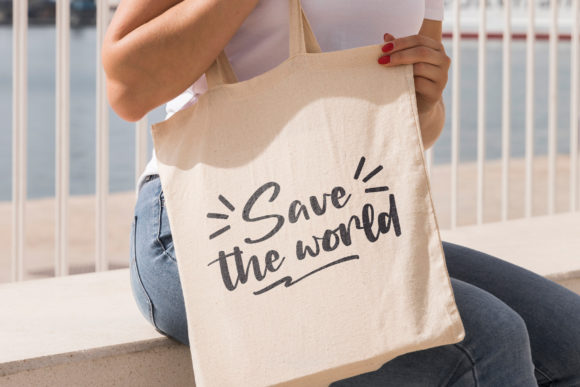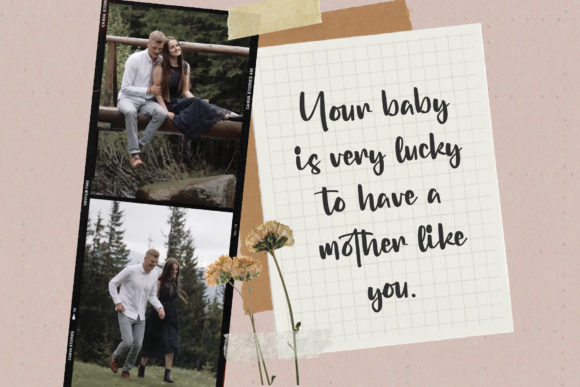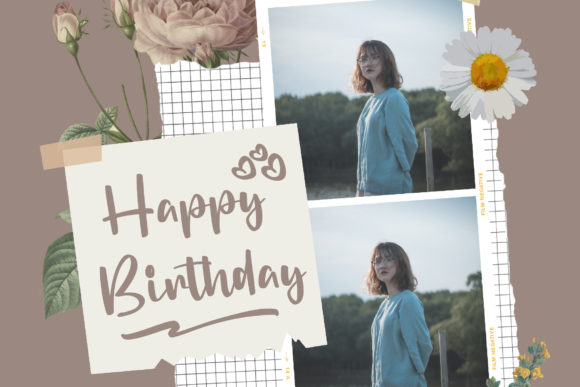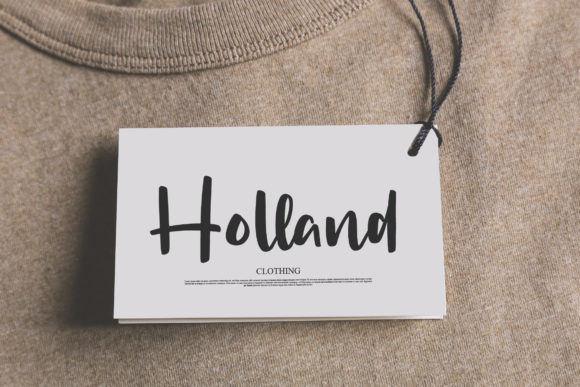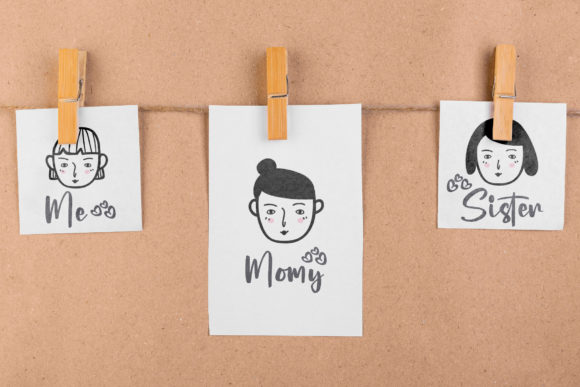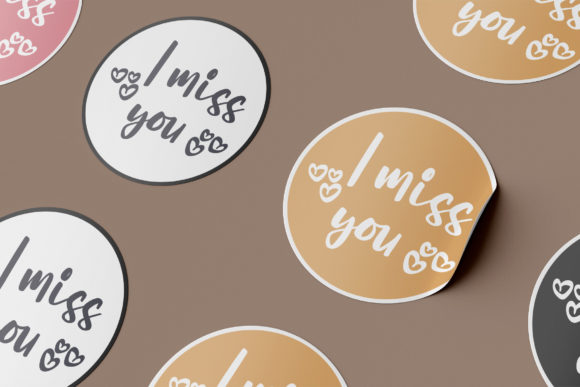
Introducing Halistera Font: Elevate Your Designs with Confidence and Style
In the world of typography, a font can make or break a design. For designers and crafters looking for a script font that exudes confidence and versatility, Halistera Font is an excellent choice. This chic and trendy script font is perfect for a wide range of projects, from branding and advertising to packaging and digital media.
What Makes Halistera Font Stand Out?
Halistera Font boasts a unique and stylish design that sets it apart from other script fonts. Its elegant lines and curves create a sophisticated look that’s perfect for designs that require a touch of luxury and refinement. The font’s stylish alternates and ligatures add an extra layer of versatility, allowing designers to experiment with different combinations to achieve the desired effect.
Key Features of Halistera Font
- PUA Encoded: Halistera Font is PUA (Private Use Area) encoded, making it easy to access all glyphs and swashes. This means that designers can effortlessly navigate the font’s extensive character set, including alternates, ligatures, and swashes, to create stunning designs.
- Stylish Alternates and Ligatures: The font features a range of stylish alternates and ligatures that can be used to add a personal touch to designs. These alternates and ligatures can be used to create a unique and customized look that’s tailored to specific design requirements.
- Confidence and Versatility: Halistera Font emanates confidence and versatility, making it perfect for a wide range of projects. Whether you’re designing a logo, creating a brand identity, or crafting a digital advertisement, this font is sure to impress.
Why Choose Halistera Font?
With so many script fonts available, why choose Halistera Font? Here are just a few reasons why designers and crafters love this font:
- Unique and Stylish Design: Halistera Font features a unique and stylish design that’s sure to turn heads. Its elegant lines and curves create a sophisticated look that’s perfect for designs that require a touch of luxury and refinement.
- Ease of Use: The font’s PUA encoding makes it easy to access all glyphs and swashes, allowing designers to focus on creating stunning designs rather than struggling with complicated font mechanics.
- Versatility: Halistera Font is incredibly versatile, making it perfect for a wide range of projects. Whether you’re designing a logo, creating a brand identity, or crafting a digital advertisement, this font is sure to impress.
How to Use Halistera Font in Your Designs
Using Halistera Font in your designs is easy. Here are a few tips to get you started:
- Experiment with Alternates and Ligatures: Take advantage of the font’s stylish alternates and ligatures to add a personal touch to your designs.
- Pair with Other Fonts: Halistera Font pairs well with a range of other fonts, making it easy to create stunning combinations.
- Use in Digital and Print Media: The font’s versatility makes it perfect for use in both digital and print media, from social media graphics to business cards and brochures.
Halistera Font is a chic and trendy script font that’s perfect for designers and crafters looking for a stylish and versatile typography solution. With its PUA encoding, stylish alternates and ligatures, and confidence-inspiring design, this font is sure to elevate your designs to the next level. Whether you’re creating a brand identity, crafting a digital advertisement, or designing a logo, Halistera Font is an excellent choice.